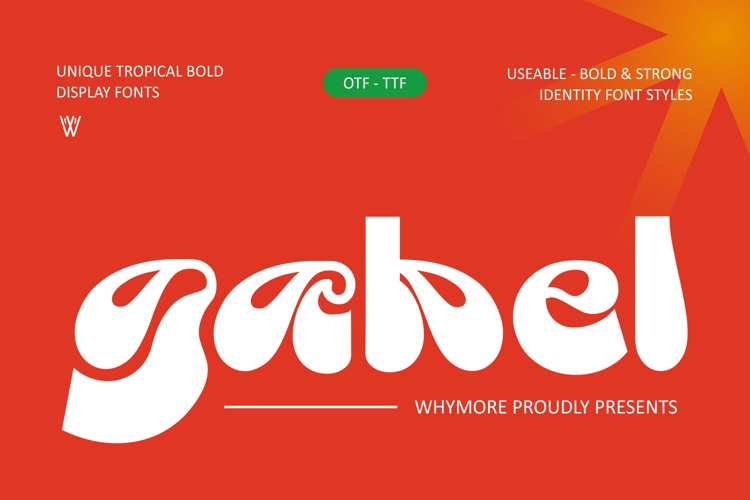
Gabel is a bold tropical retro display font designed to create eye-catching branding with playful personality. Inspired by vintage groovy typography, it combines thick letterforms and unique curves to deliver warm, memorable visuals for logos, packaging, posters, apparel, café branding, summer campaigns, and creative merchandise.
Its distinctive character instantly gives every project a fun, confident, and nostalgic identity while remaining clean and highly usable for modern design needs.
Tropical Branding
Summer Posters
Café & Beverage Logos
Packaging Design
Apparel & Merchandise
Retro Social Media Graphics
Gabel